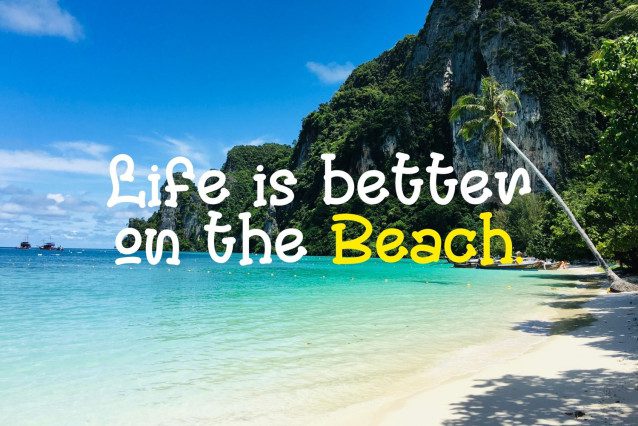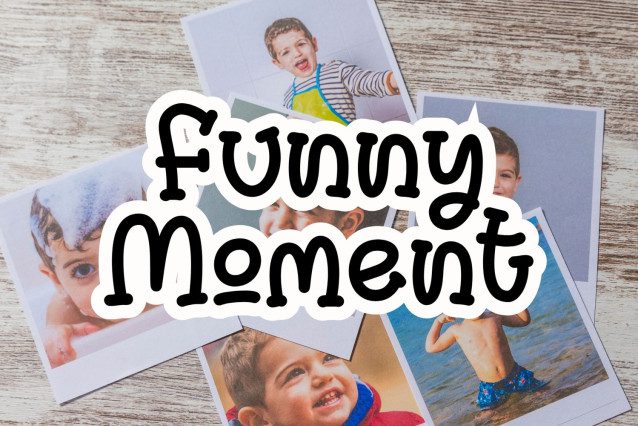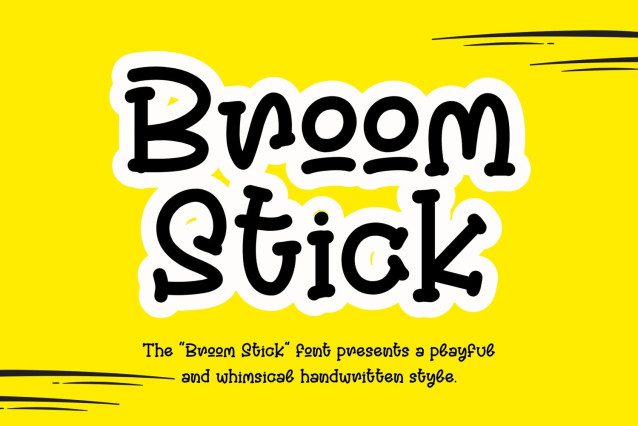
Broom Stick Font
Broom Stick Font presents a playful and whimsical handwritten style with tall, rounded characters and a slightly irregular baseline. Its casual and friendly design gives off a lighthearted and fun vibe, making it perfect for children’s books, cartoon titles, product packaging, and creative projects that aim to express joy and imagination.